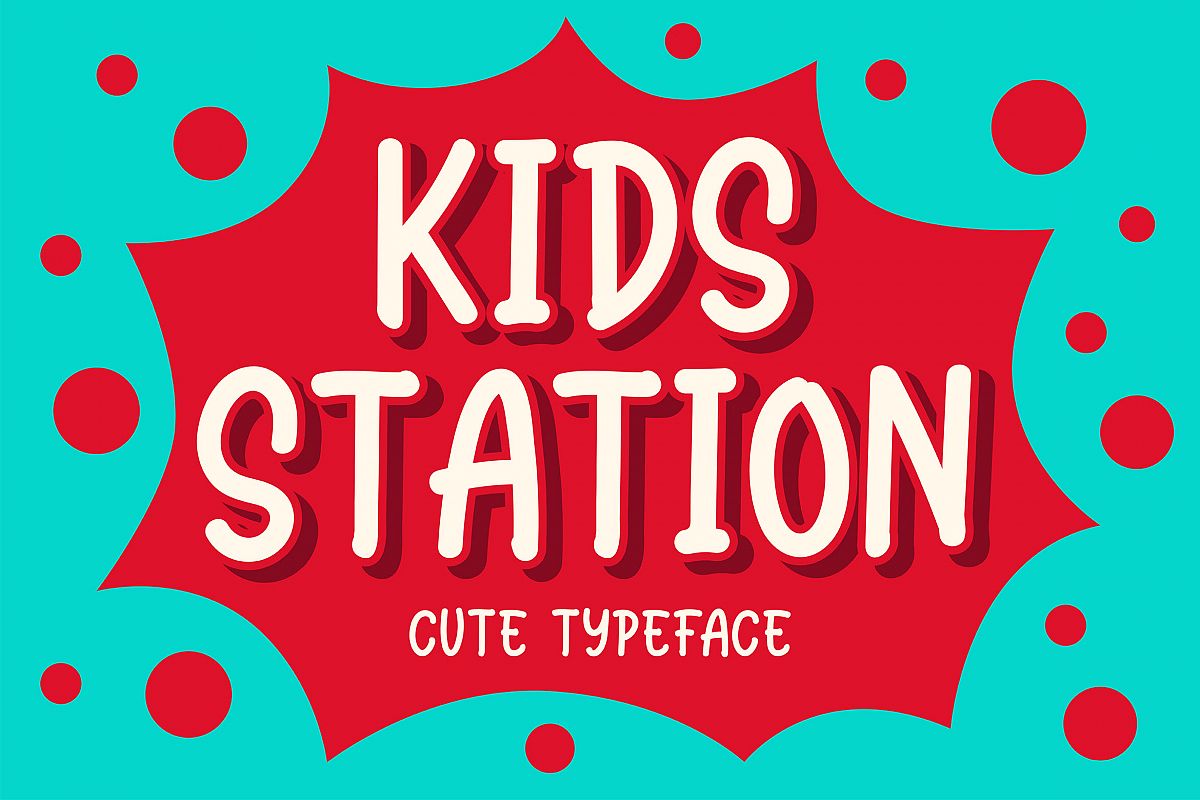
Introducing of our new product the name is Kids Station Cute Typeface.Kids Station inspired from comic style very good for kids poster, flyer childrenbook, cartoon, comic etc
MULTILINGUAL ACCENT :
- ŽžŠŒšŸÀÁÂÃÄÅÆÇÈÉÊËÌÍÎÏÐÑÒÓÔÕÖØÙÚÛÜÝßàáâãäåæçèéêëìíîïñòóôõöøùúûüýÿ